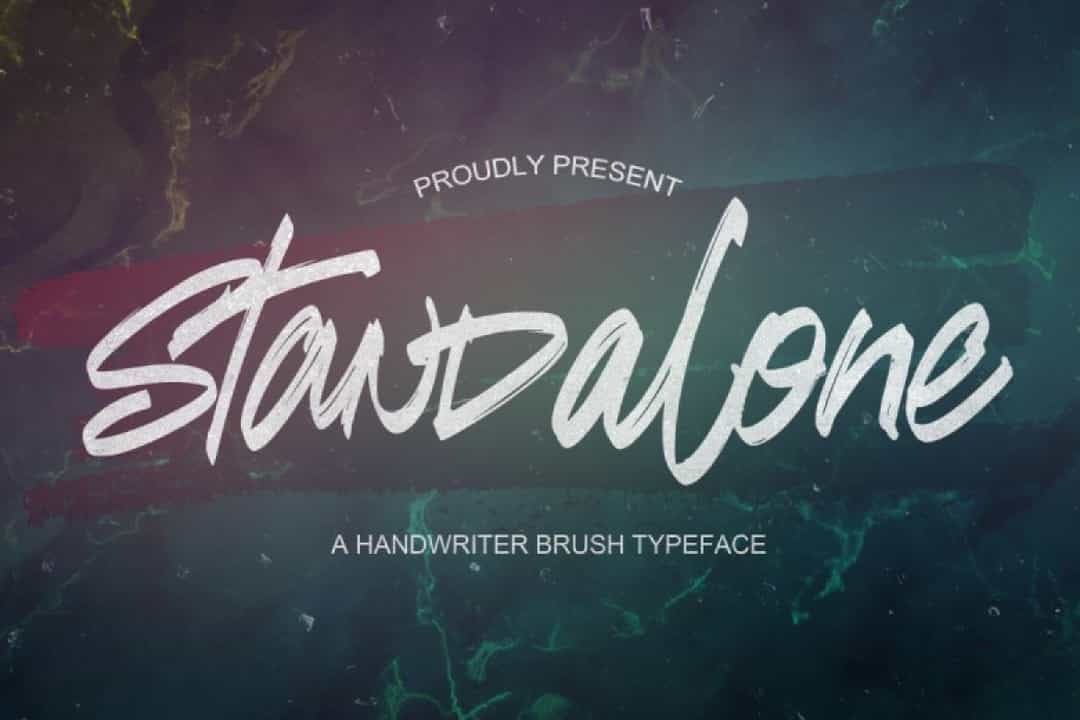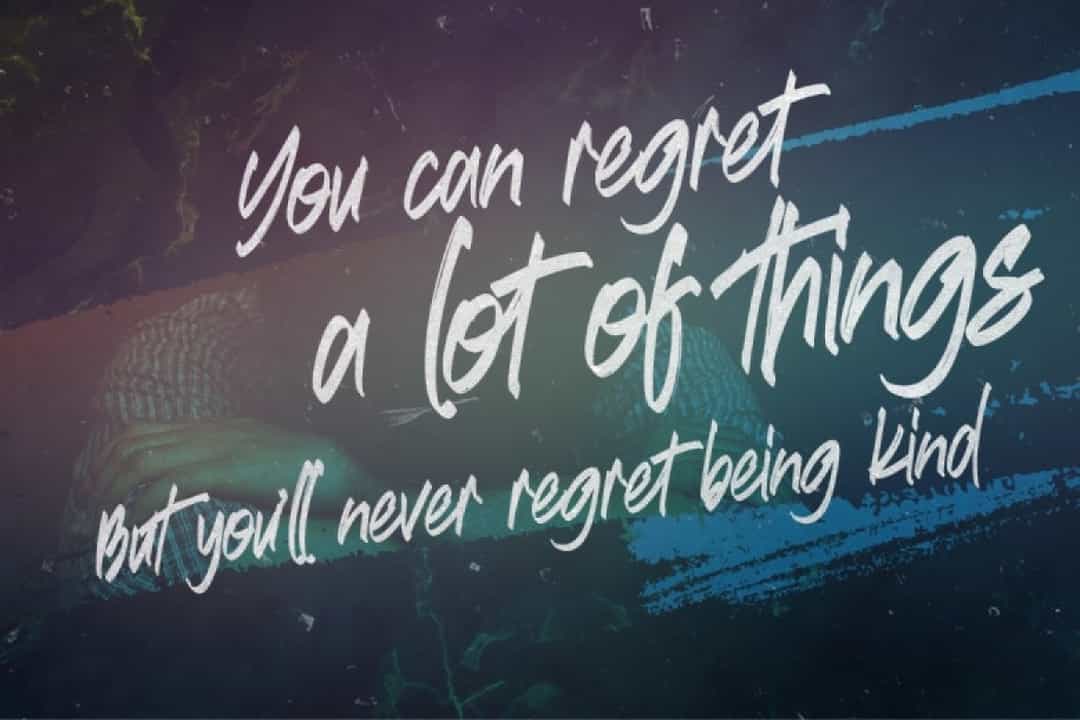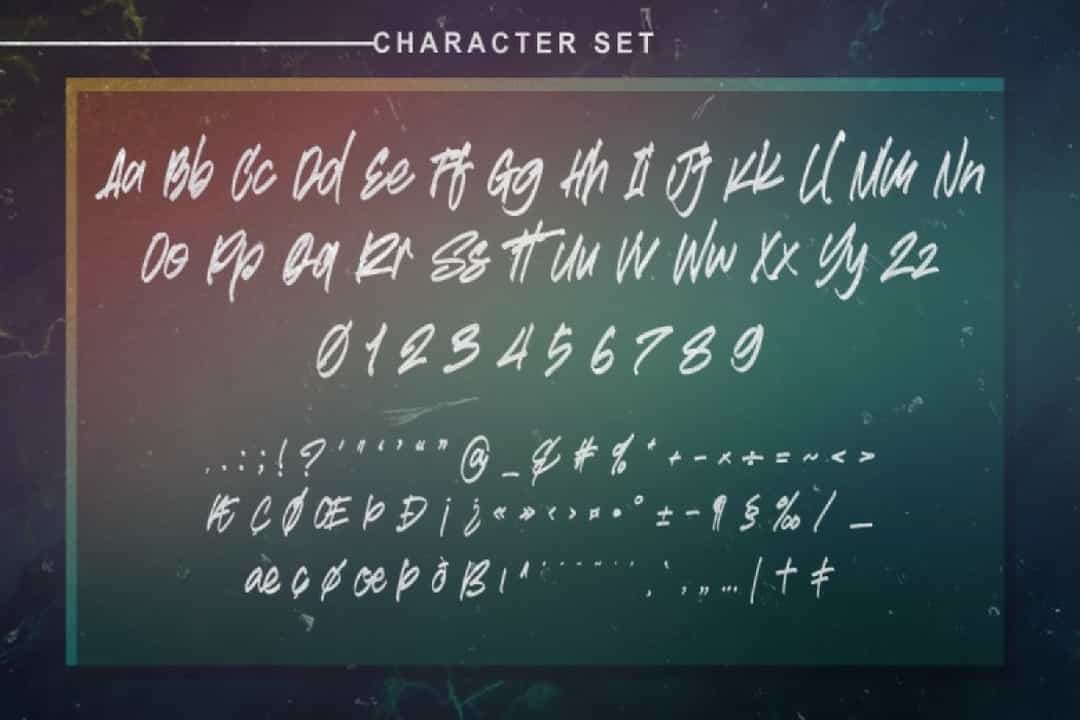
“Standalone” is an attractive handwritten brush font designed for quick and casual writing. Letters are created using Procreate brushes before being carefully vectorized into font form – giving it its distinct authentic yet relaxed character that adds more of a natural appearance when used as text.